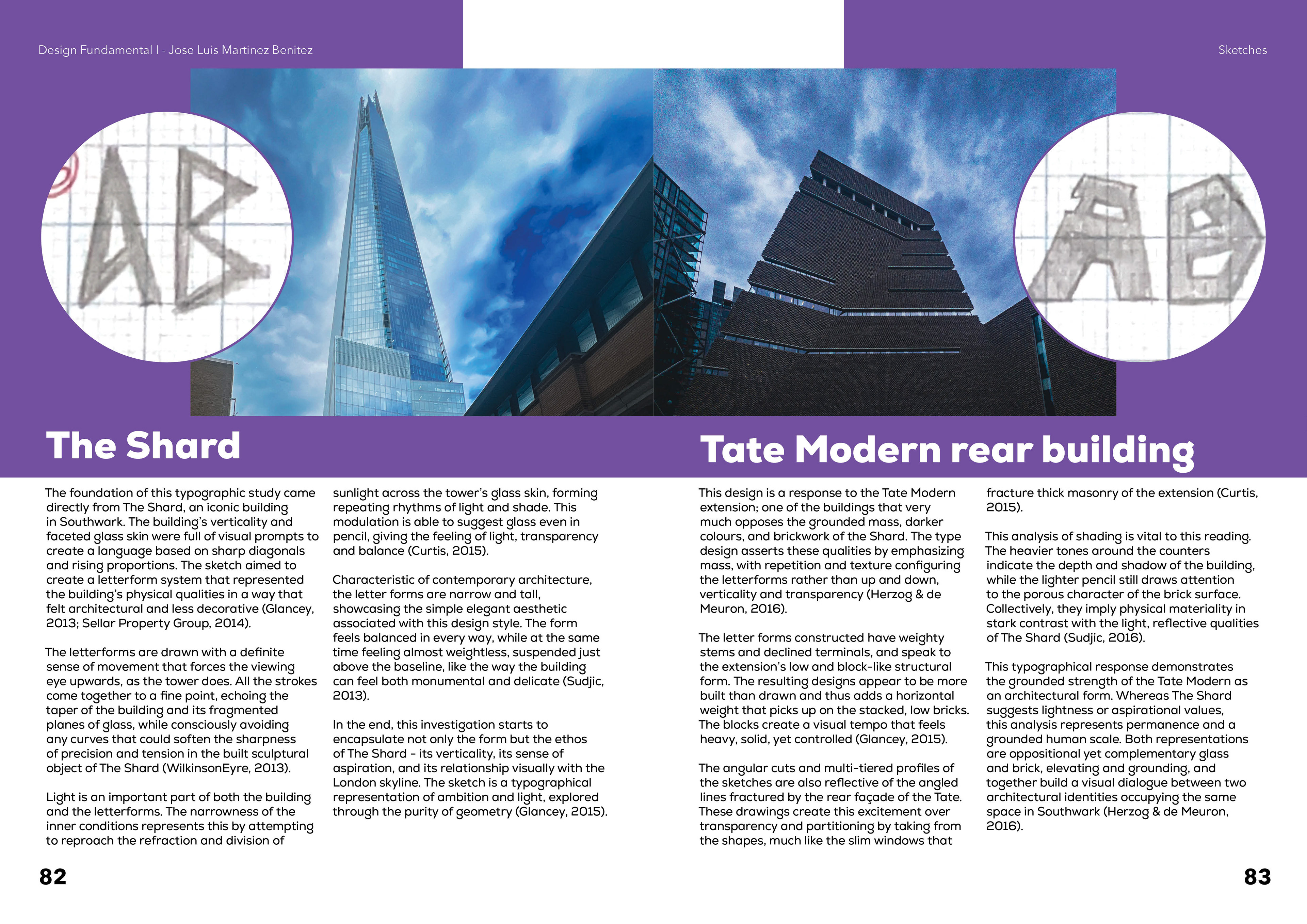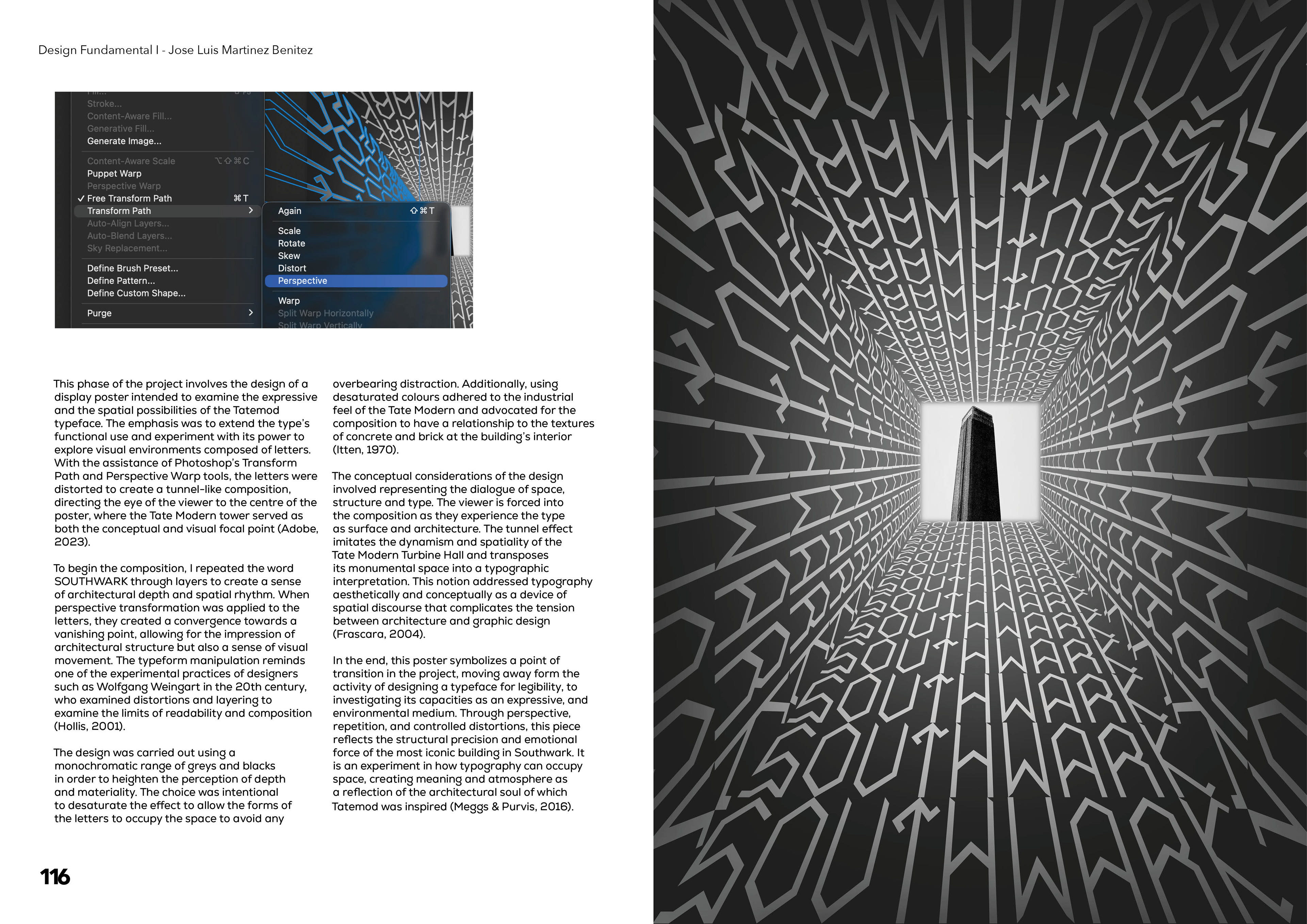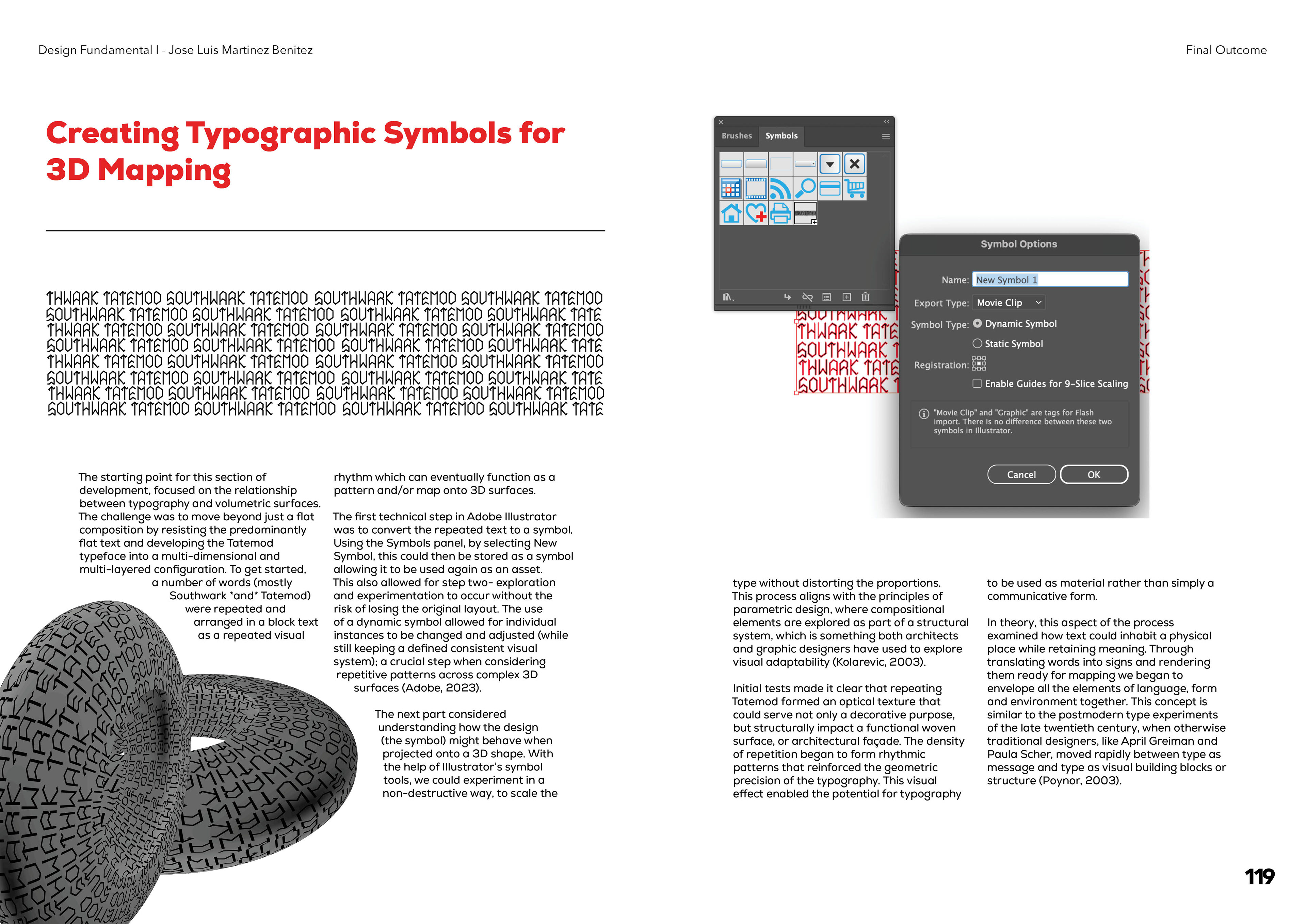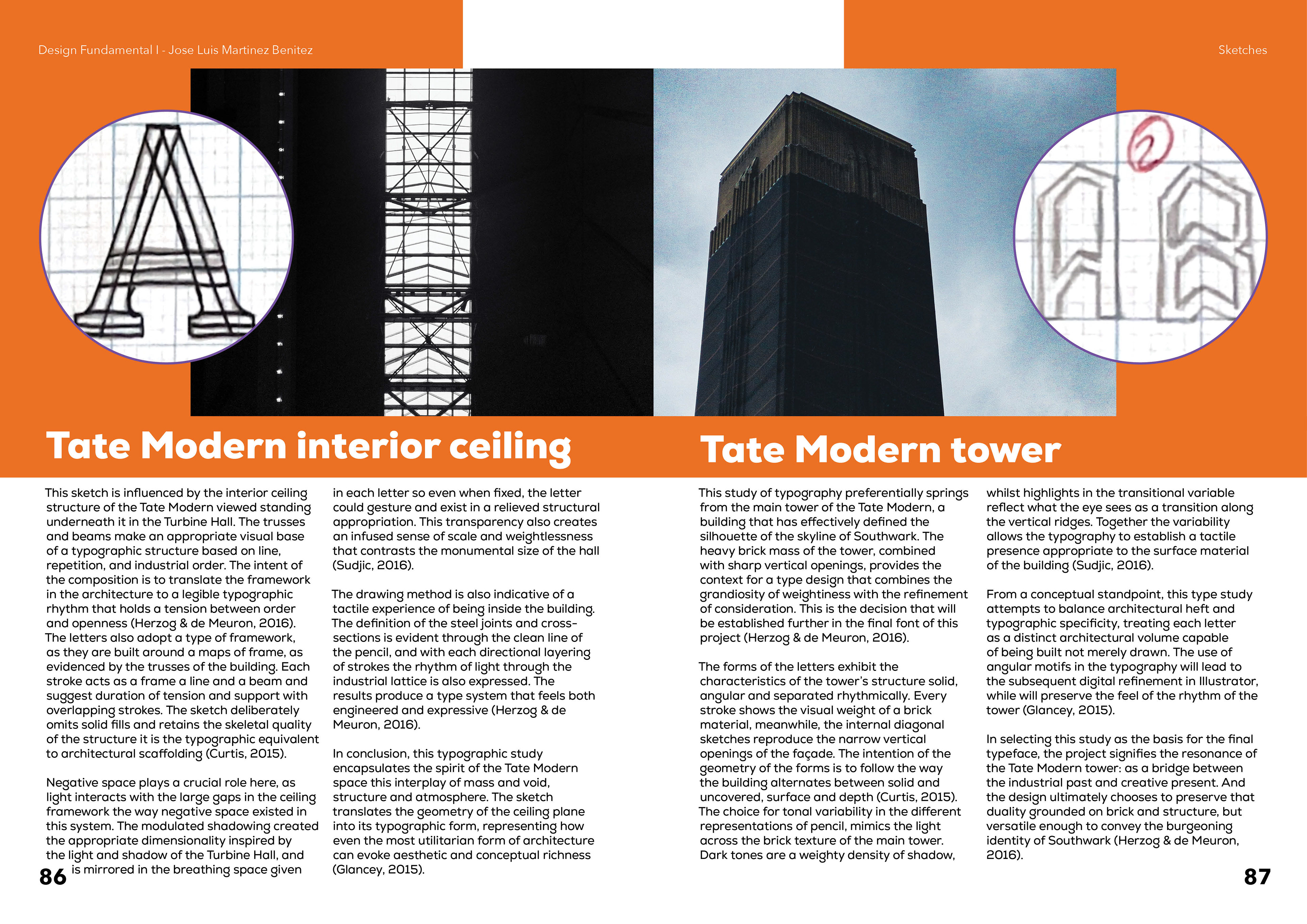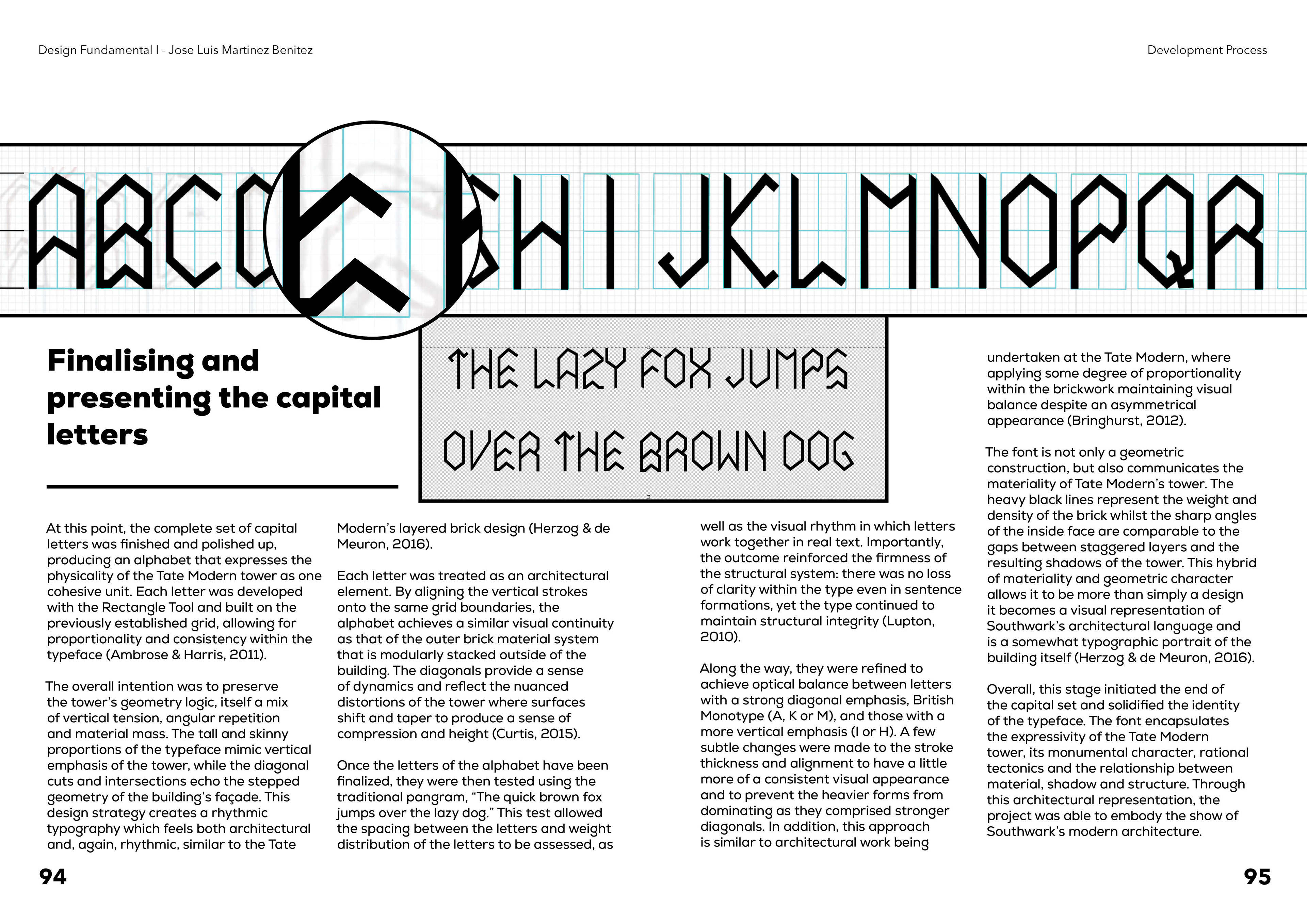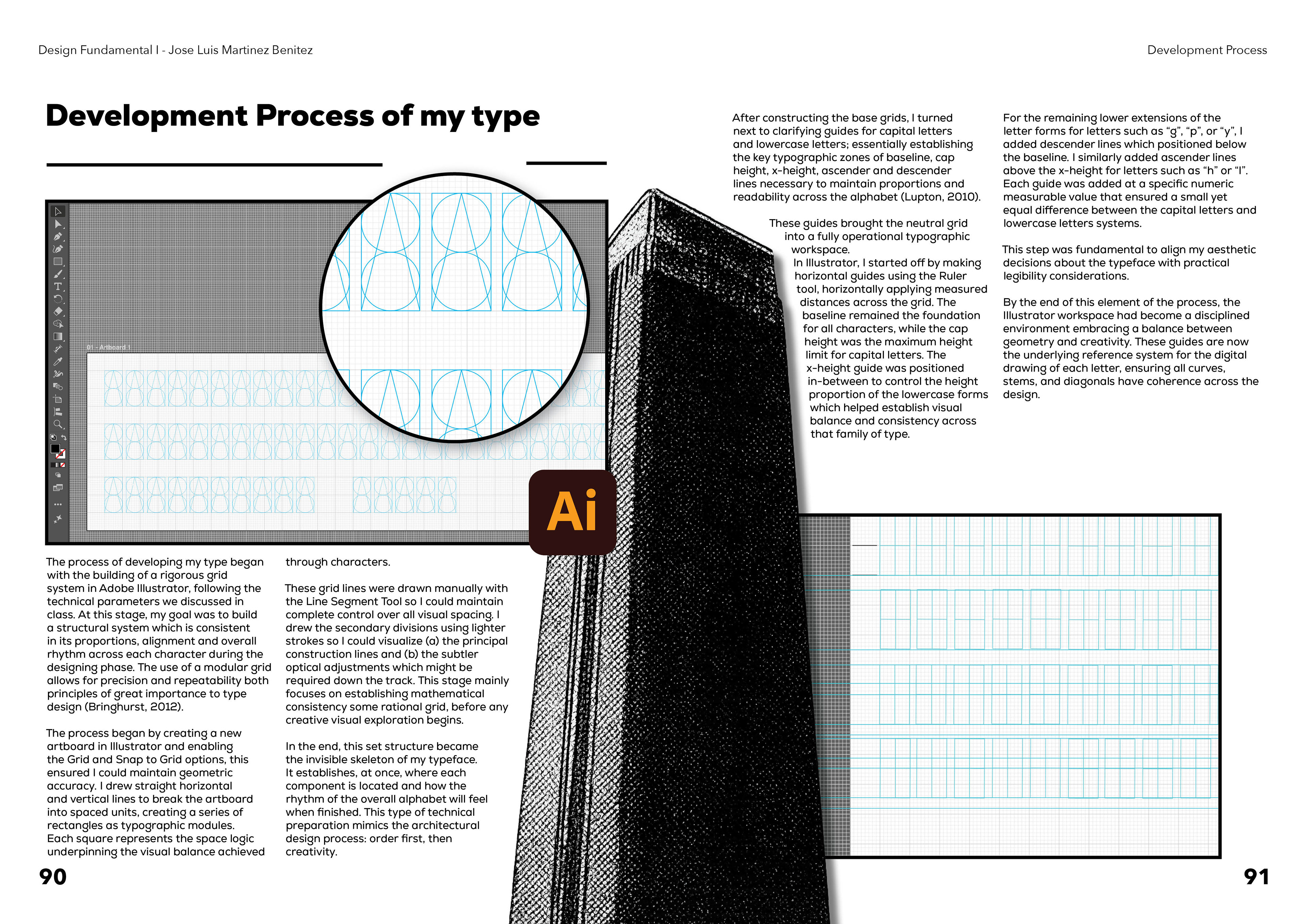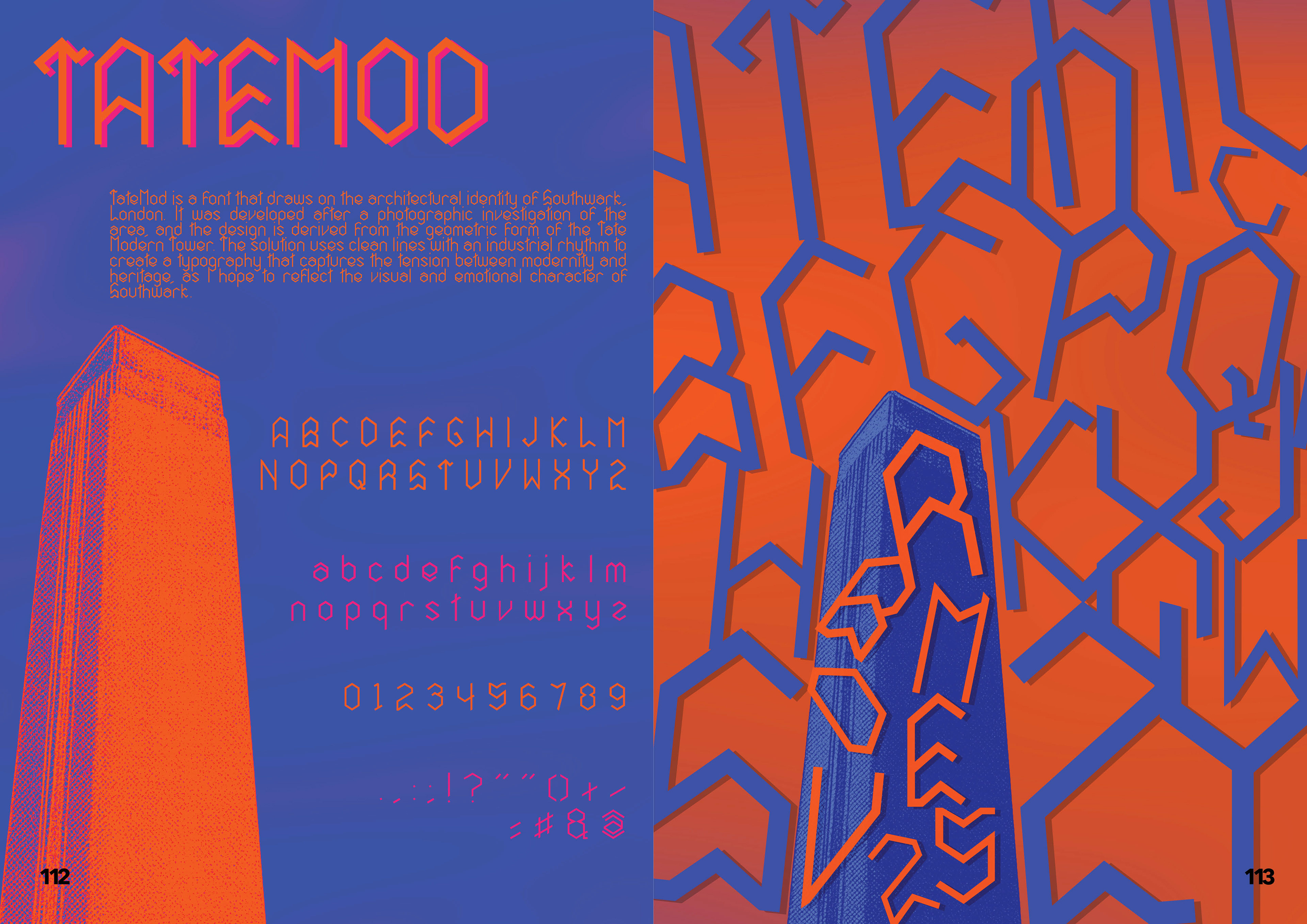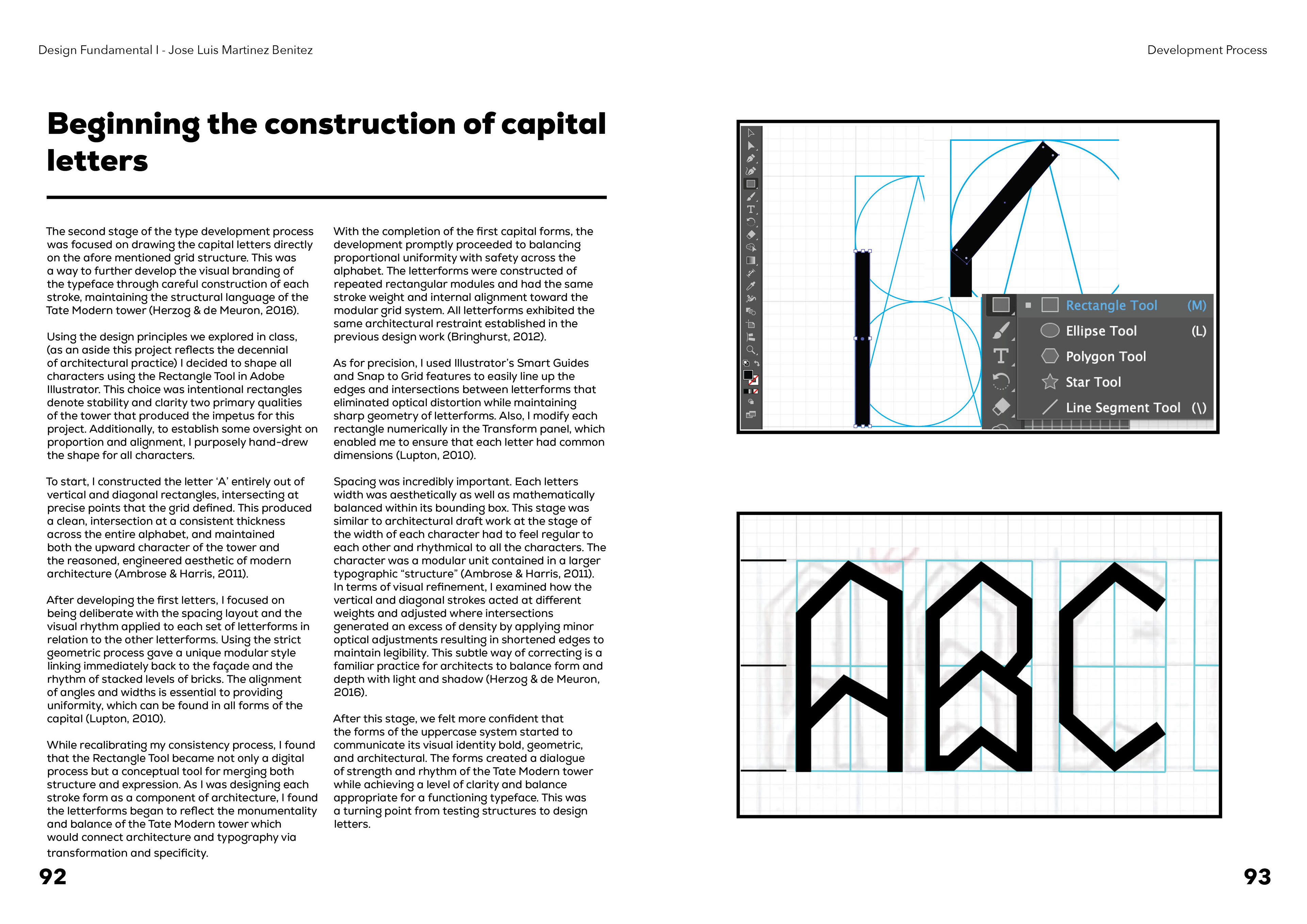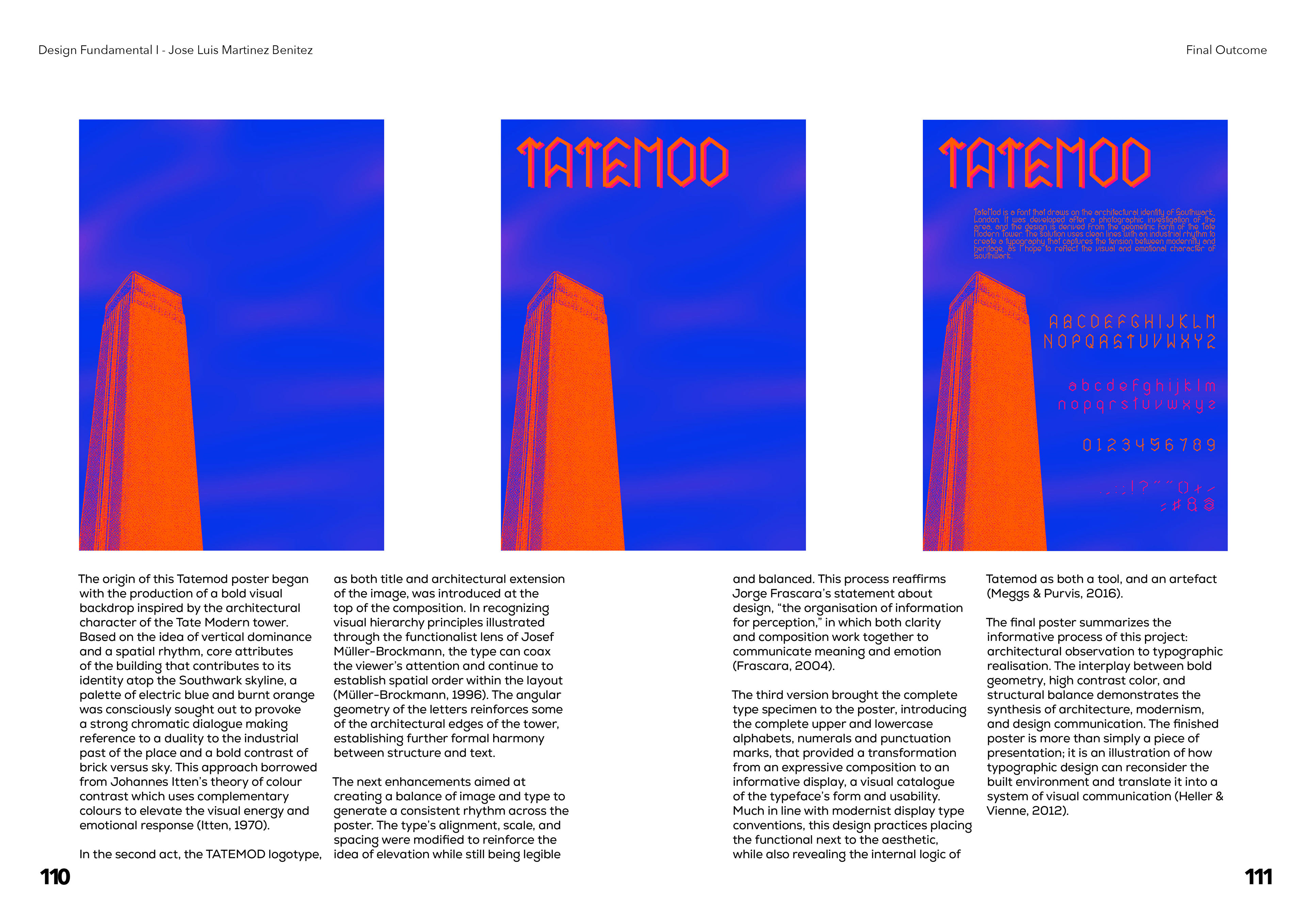
Southwark Typeface: From Sketch to Structure
Southwark Typeface is a custom-designed typeface developed as part of my Design Fundamentals module at London College of Communication. The project explores Southwark as a source of visual inspiration, focusing on its architecture, urban structures, and public spaces. The design process began with extensive on-site observation and hand sketching, translating architectural forms and spatial relationships into typographic concepts. These early explorations informed the development of multiple stylistic directions, from which a final design system was selected. The final typeface is based on a structural framework inspired by the verticality and proportions of the tower, influencing both the scale and construction of the letterforms. The project concludes with a series of tests, mockups, and posters designed to evaluate readability, consistency, and visual impact in real-world applications.